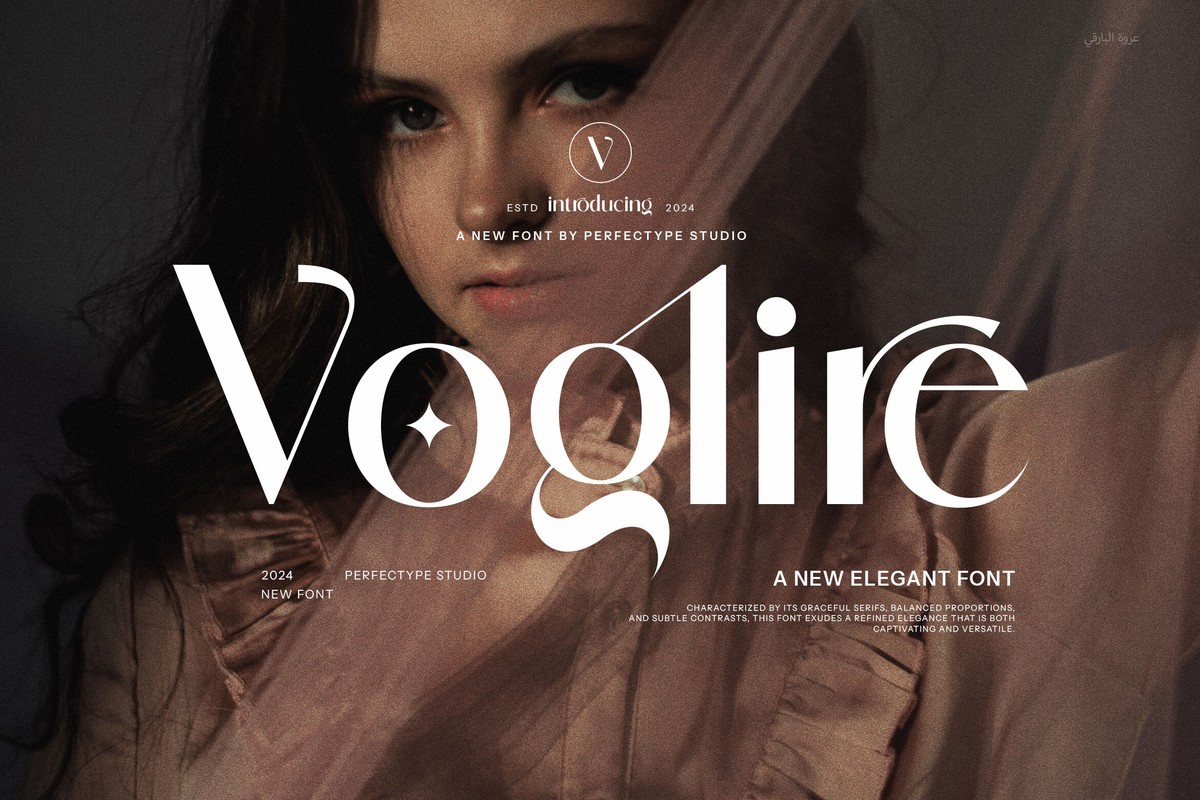
Voglire Font
Voglire Font excels in contemporary fashion magazine layouts, avant-garde design studios, modern art gallery exhibitions, innovative technology company branding, cutting-edge architecture presentations, futuristic lifestyle publications, experimental creative agencies, progressive design conferences, visionary startup identities, and forward-thinking cultural institutions. This dynamic typeface brings contemporary edge and design innovation to any modern creative project.
Voglire Font is exciting because it embodies the bold creativity and experimental spirit that defines contemporary design innovation, featuring distinctive letterforms that push typographic boundaries and challenge conventional aesthetic expectations. Its avant-garde character instantly conveys creative courage, design leadership, and the progressive thinking that drives cultural evolution and artistic advancement in modern visual communication.
Voglire Font family includes Light, Regular, Medium, Bold, and Black weights with experimental alternates, innovative flourishes, contemporary ornamental elements, and progressive symbols that enhance the modern aesthetic, providing avant-garde designers with cutting-edge tools for creating typography that represents the forefront of design thinking and creative expression.
Contemporary design specialists appreciate Voglire Font for its exceptional ability to convey creative innovation and design sophistication through boldly crafted letterforms. The font's progressive character and avant-garde details create immediate associations with design leadership, creative experimentation, and the cultural movements that shape contemporary aesthetic trends and visual communication standards.
The design philosophy behind Voglire Font celebrates the importance of creative risk-taking and the bold experimentation required to advance design culture and push artistic boundaries beyond conventional limitations, making it particularly effective for creative agencies, design institutions, and cultural organizations that value innovation over tradition. Creative teams working on experimental projects find this font essential for expressing design leadership.
Whether used for avant-garde design studios, contemporary art exhibitions, or innovative technology brands, Voglire Font delivers the perfect synthesis of creative sophistication and design innovation. Its contemporary appeal and experimental edge make it an indispensable choice for organizations that lead creative trends, challenge design conventions, and advance the evolution of contemporary visual culture through bold creative expression.